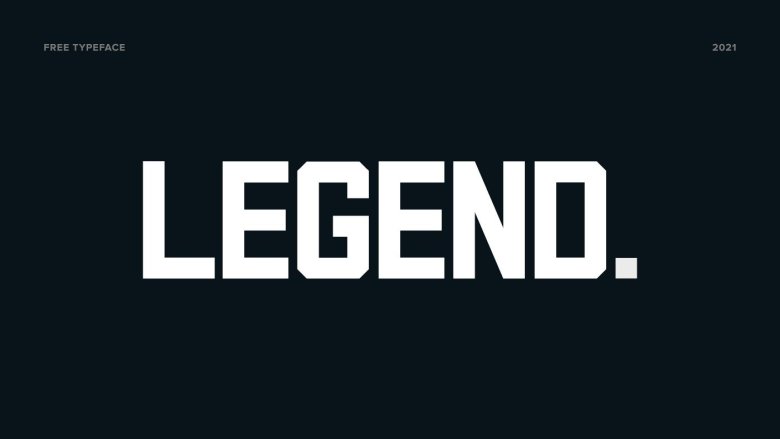
Legend Font
Legend Display Font
Legend Font is a Fancy Font Bold Display. Created by Artyom Levanov MalglicoThis sturdy fat conensed typeface is spoiling to draw some murderous attentions. It is so unapologetically strong: perfect for posters, ads or even logos. It has uppercase and lowercase letters, numbers, and a few symbols